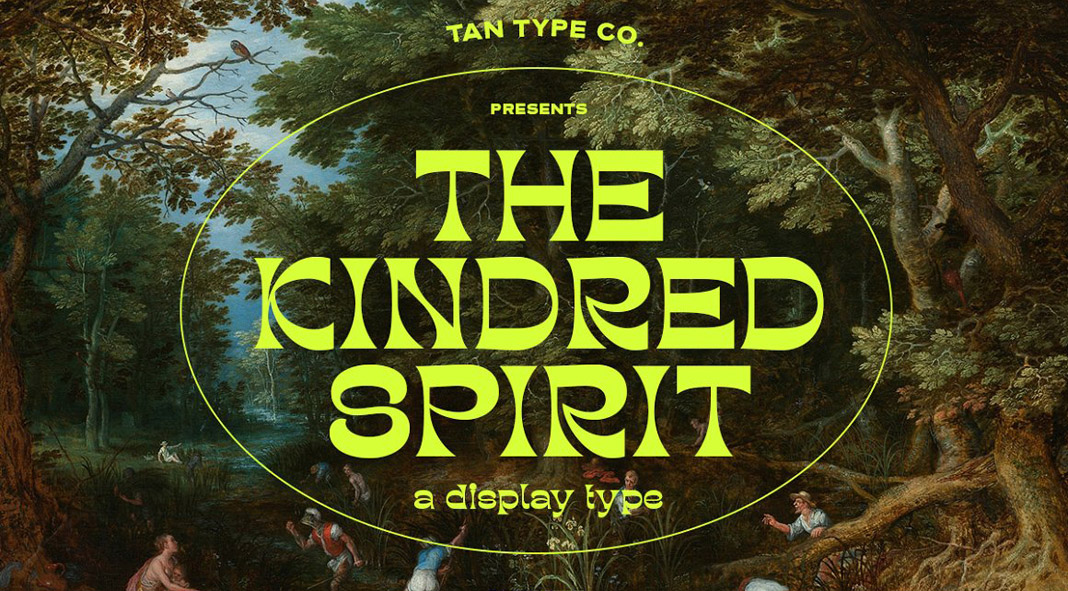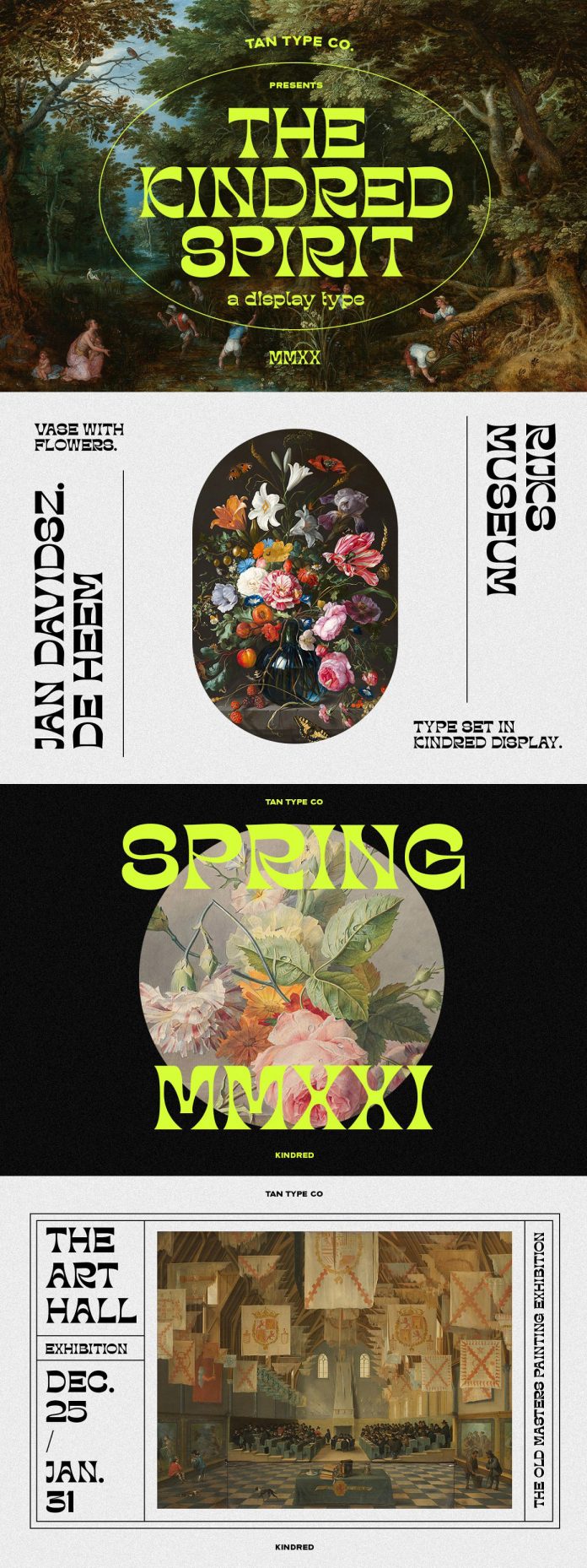
Have a look at TAN KINDRED, a playful yet elegant and unique display font from foundry TanType.
Published by foundry TanType at the end of 2020, TAN KINDRED is a super stylish reverse contrast display font. Its letters are based on a quirky but elegant design. TAN KINDRED is a great choice for striking headlines or bold titles in combination with graphics, artworks, or photography. Using this typeface, you can add a more recognizable look to your design. It can be combined easily with its sibling typeface TAN PARADISO.